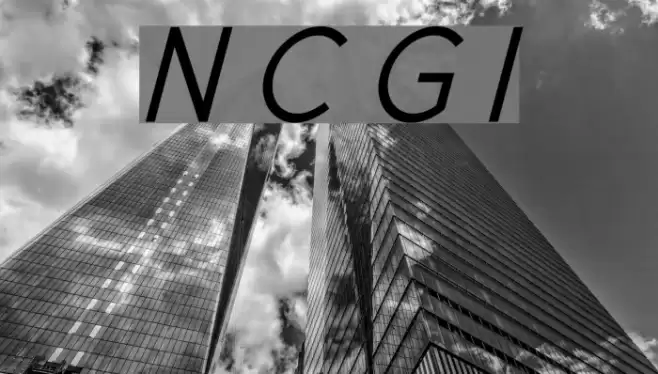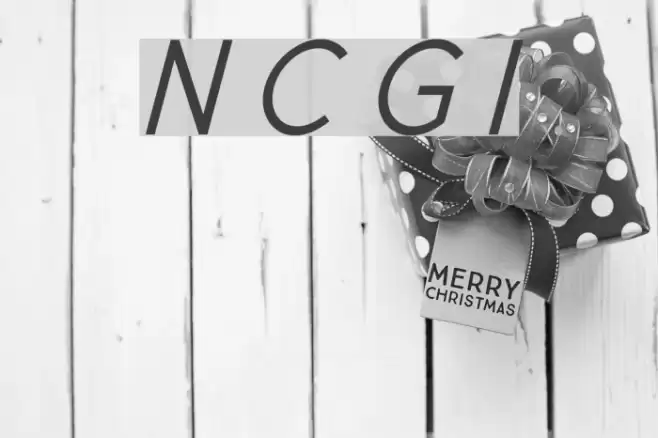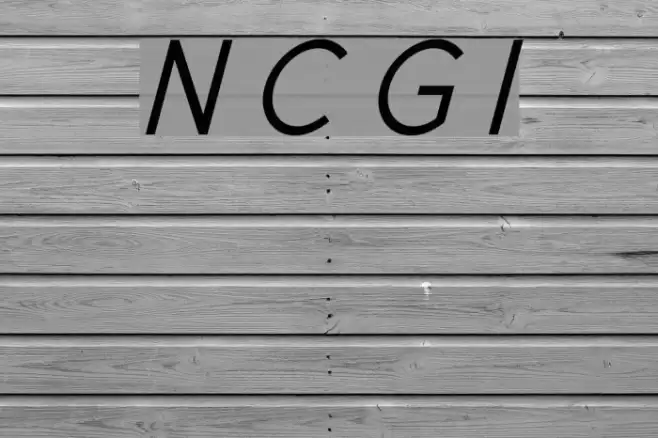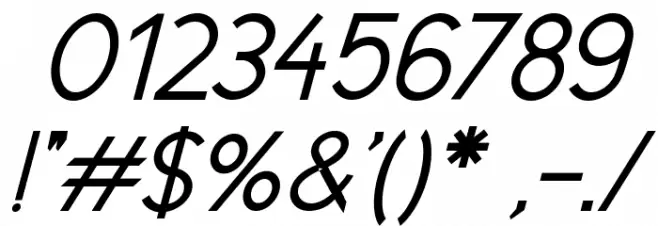
New Cicle Gordita Italic Font
New Cicle Gordita Italic Description
This font features a sleek, modern design with a slight italic slant, giving it a dynamic and forward-moving appearance. The characters are clean and well-defined, with smooth curves and a consistent stroke width that enhances readability. The uppercase letters are bold and commanding, while the lowercase letters maintain a friendly and approachable feel. The numerals are clear and distinct, making them easy to read. Special characters are included, adding versatility to the font's use. Overall, this font combines elegance with functionality, making it suitable for a variety of design projects.
A modern, italic sans-serif font with clean lines and smooth curves from Sans Serif fonts.